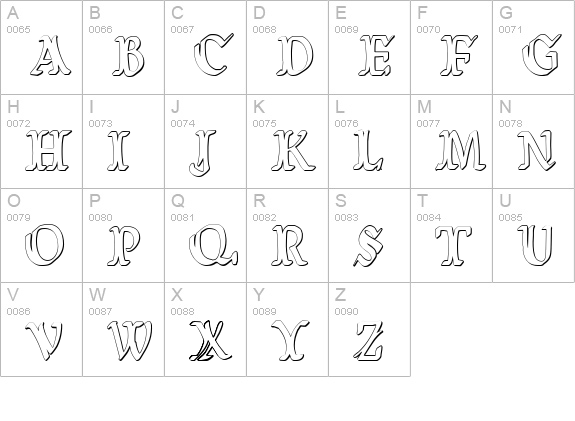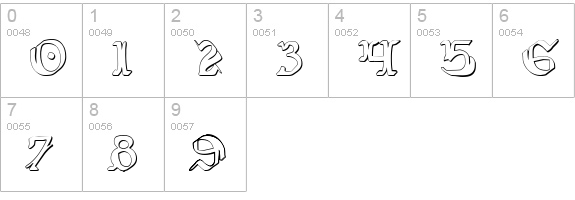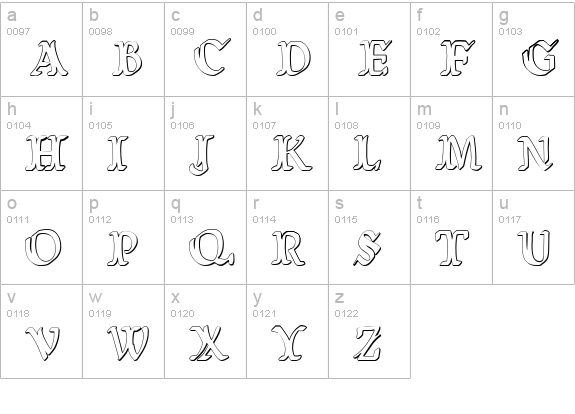
Wars of Asgard Condensed 3D Font Details
Wars of Asgard Condensed 3D is a distinctive, condensed-width variant in the Wars typeface family \xE2\x80\x94 well suited to design and typography projects.
Wars of Asgard Condensed 3D font is a powerful and dynamic typeface that exudes strength and innovation. Its sharp angles and bold lines convey a sense of heroism and adventure, making it perfect for projects that require a touch of epic flair. The 3D effect adds depth and dimension to each character, making them pop off the page with a captivating presence. What sets Wars of Asgard Condensed 3D font apart is not only its striking design, but also its versatility. Whether you're working on a poster for a fantasy film, designing a logo for a gaming company, or creating promotional materials for a comic convention, this font will elevate your work to new heights. And the best part? Wars of Asgard Condensed 3D font is available for free download at FontsMarket.com. So go ahead and unleash your creativity with this incredible font that is sure to leave a lasting impression on any project.